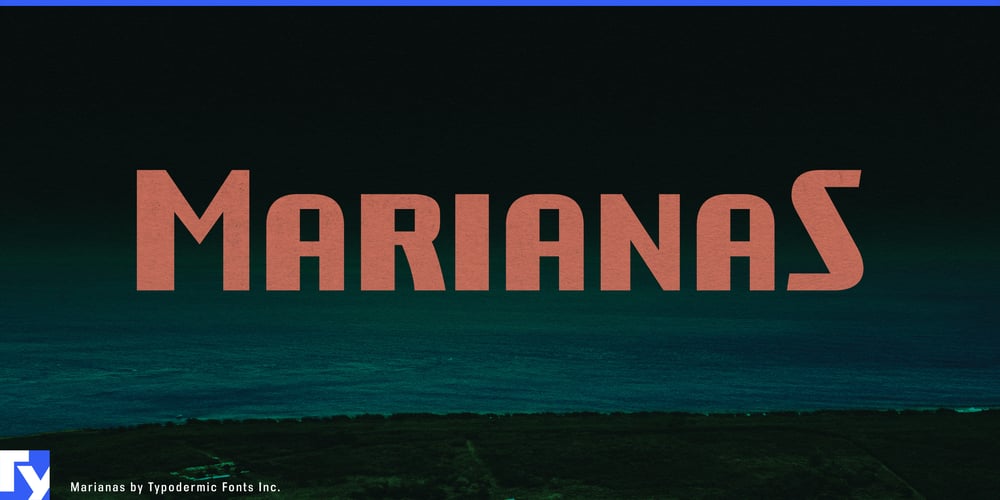
Marianas
Marianas font
Marianas Font Family was designed by Ray Larabie and published by Typodermic. Marianas contains 1 styles and family package options. Prepare for typographic warfare with Marianas, a font that doesn’t just speak—it commands. This powerhouse of design fuses the suave sophistication of 1920s Art Deco with the unyielding precision of 1940s industrial might, creating a visual language that’s as bold as a bomber formation and as sleek as a fighter plane.Born in the crucible of digital combat, Marianas first took flight in a video game chronicling the Pacific Air War. Its mission? To capture the indomitable spirit of aerial aces and the raw power of wartime machinery. Each character stands at attention, a perfect fusion of form and function, ready to lead your designs into battle against mediocrity. Marianas doesn’t ask for attention—it requisitions it. The typeface’s militaristic bearing is evident in every stern line and strategic curve. Its letterforms march across the page with the discipline of a well-drilled squadron, each one a soldier in your typographic army. From posters that demand action to logos that exude authority, Marianas turns every application into a theater of design warfare.But Marianas isn’t all brute force. Like a skilled tactician, it knows when to deploy elegance as a secret weapon. The Art Deco influences whisper of smoky officer’s clubs and gleaming chrome, adding a layer of sophistication to its industrial backbone. This is a typeface for brands that don’t just want to compete—they want to conquer. Marianas’ linguistic arsenal is as impressive as its visual firepower. With support for an extensive range of Latin-based European languages and even some Cyrillic-based systems, it’s ready to lead campaigns across borders and cultures. Whether you’re crafting slogans in Spanish or headlines in Hungarian, Marianas ensures your message maintains its commanding presence.Enlist Marianas in your design corps today and watch as it transforms your creations from mere communications into visual declarations of intent.